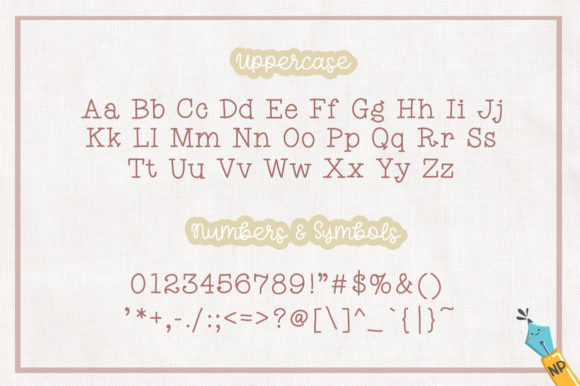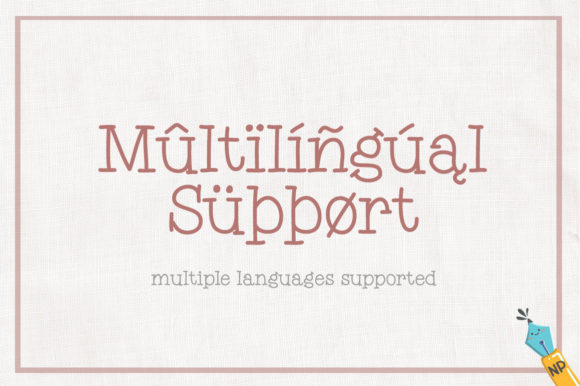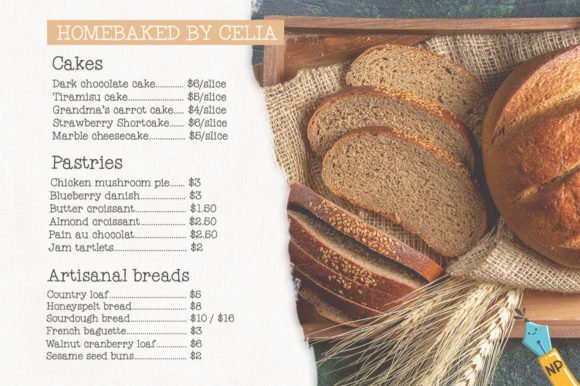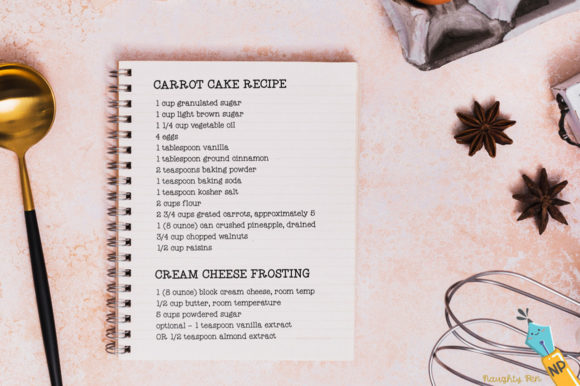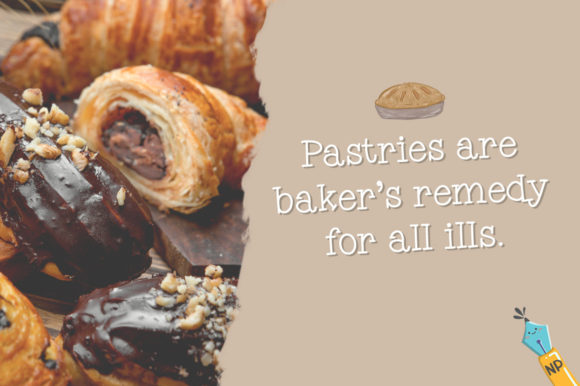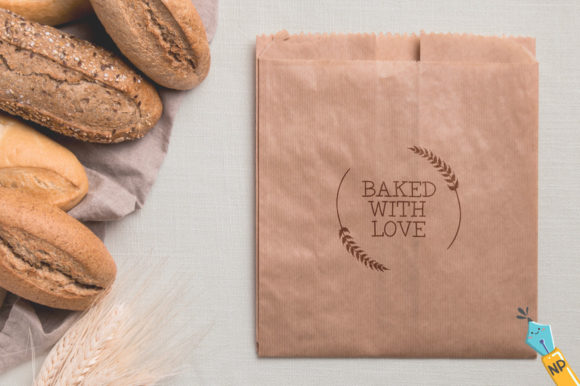
Cottage Baker Font: Elevate Your Designs with a Touch of Elegance
In the world of typography, the right font can make all the difference in transforming a design from ordinary to extraordinary. For designers and crafters looking to add a touch of sophistication and whimsy to their creations, the Cottage Baker Font is an excellent choice. This cool, thin, and dainty slab serif font is expertly designed to make your projects stand out, offering a versatile and elegant solution for a variety of design ideas.
What is Cottage Baker Font?
Cottage Baker Font is a unique slab serif typeface that combines the classic appeal of serif fonts with the modern aesthetic of thin lines. Its distinctive design features make it perfect for projects that require a bit of elegance and charm. Whether you’re working on a branding project, crafting beautiful invitations, or designing eye-catching posters, Cottage Baker Font is sure to impress.
Key Features of Cottage Baker Font
- Thin and Dainty Design: The font’s slender lines and delicate appearance make it ideal for designs that require a subtle yet sophisticated look.
- Slab Serif Style: The slab serif style gives Cottage Baker Font a sturdy feel while maintaining its elegance, making it versatile for various design applications.
- Easy to Read: Despite its thin design, the font remains highly legible, ensuring that your message is communicated clearly and effectively.
- Highly Versatile: From digital projects like websites and social media graphics to print materials such as brochures and business cards, Cottage Baker Font adapts seamlessly to different mediums.
Use Cases for Cottage Baker Font
The versatility of Cottage Baker Font makes it suitable for a wide range of design projects. Here are some popular use cases:
- Branding and Logo Design: Create a lasting impression with a logo that exudes elegance and sophistication.
- Invitations and Stationery: Add a touch of whimsy and charm to your invitations, greeting cards, and other stationery items.
- Posters and Flyers: Make your promotional materials stand out with a font that is both eye-catching and easy to read.
- Web Design: Enhance the aesthetic appeal of your website with a font that is clean, modern, and highly legible.
- Social Media Graphics: Elevate your social media presence with visually appealing graphics that incorporate Cottage Baker Font.
Why Choose Cottage Baker Font?
In a sea of fonts, Cottage Baker stands out for its unique blend of elegance and playfulness. Here are a few reasons why designers and crafters are drawn to this font:
- Unique Aesthetic: Cottage Baker Font offers a distinctive look that can help your designs stand out from the crowd.
- Time-Saving: With its highly legible and versatile design, you can use Cottage Baker Font across multiple projects, saving you time and effort in finding and pairing fonts.
- Professional Look: The font’s sophisticated design ensures that your projects look professional and polished, which is essential for building a strong brand image.
Cottage Baker Font is a valuable addition to any designer’s or crafter’s toolkit. Its unique blend of thin, dainty lines and slab serif style makes it a versatile and elegant choice for a variety of projects. Whether you’re looking to create stunning branding materials, beautiful invitations, or eye-catching posters, Cottage Baker Font is sure to elevate your designs to new heights. Explore the possibilities of Cottage Baker Font today and discover how it can transform your creative projects.